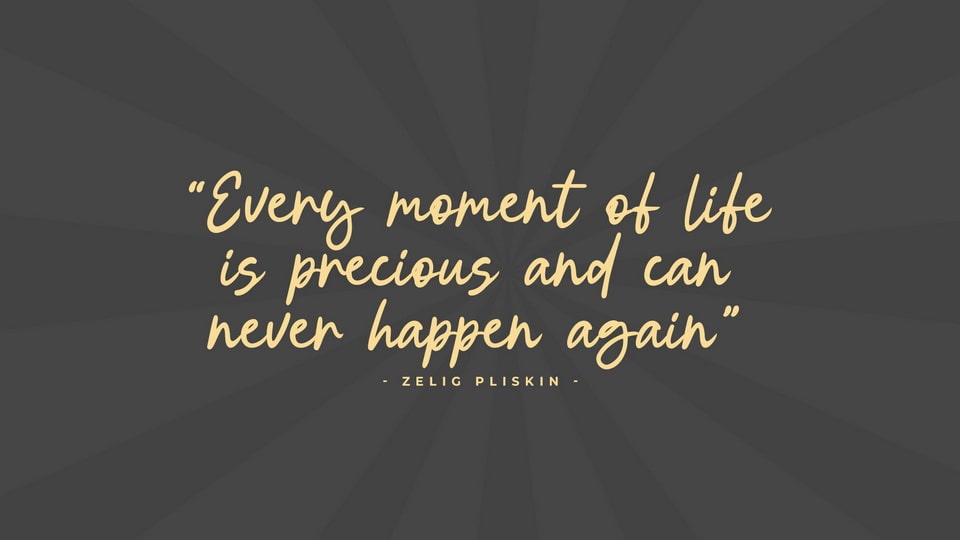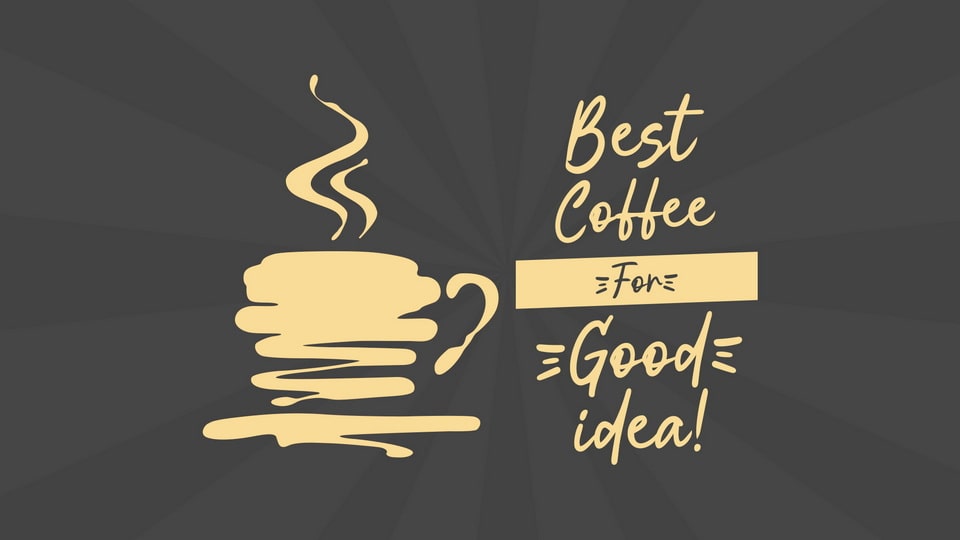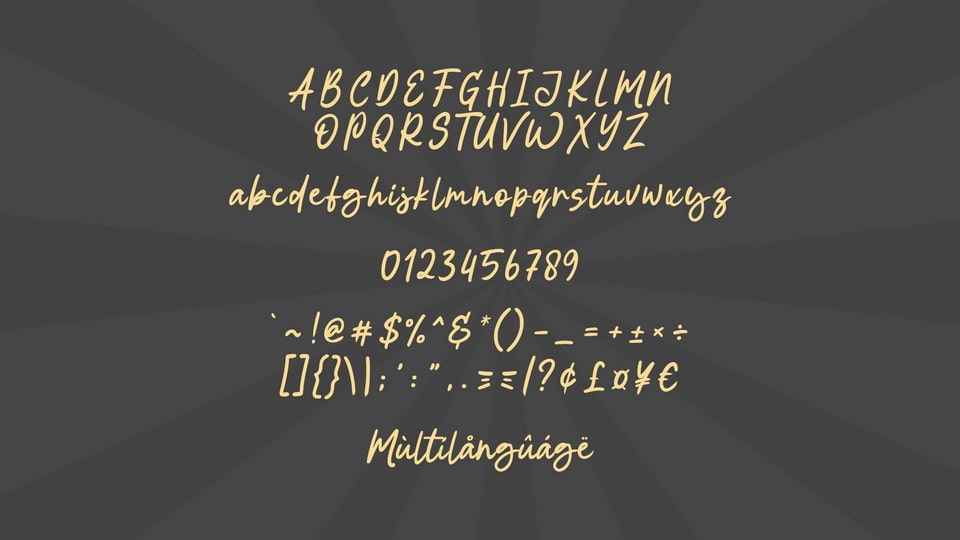
Halu is a simple, natural, and dynamic handwritten font that captures the effortless beauty of quick pen strokes. Its fluid, slightly irregular letterforms create a sense of movement and spontaneity, making it feel personal and expressive. The organic rhythm of the writing gives it a fresh and approachable character, perfect for adding warmth to any project.
Designed to mimic the natural motion of handwriting, Halu font balances simplicity with energy. Its soft curves and gentle variations make it ideal for personal notes, branding, packaging, and social media graphics. Whether used for casual quotes or creative logos, it brings an authentic and unpolished charm to your text.
Let your words flow naturally with Halu—a typeface that feels as effortless and expressive as a quick handwritten note.